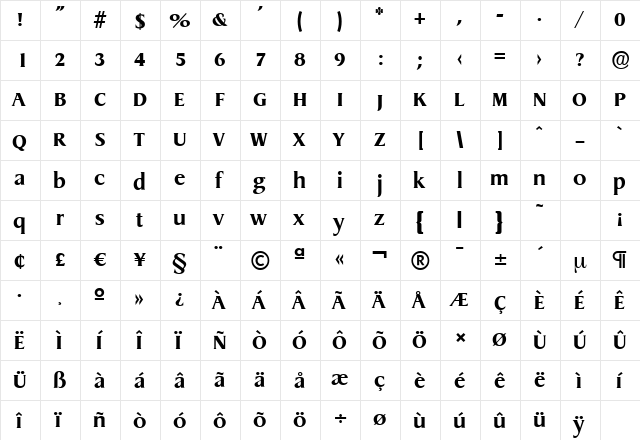
DragonSerial-Xbold Regular
Design Context for DragonSerial-Xbold Typeface
DragonSerial-Xbold is a composed and adaptable typeface that performs quietly and consistently across a wide range of design contexts. Its bold stroke weight gives it real presence on the page.